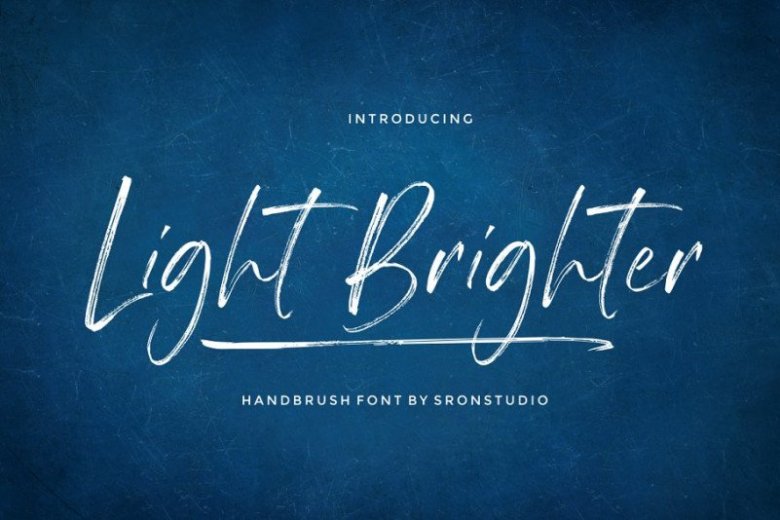
Light Brighter Brush Font
This is a script handbrush font, designed and shared by Sronstudio. It’s a modern brush font with handwritten style and natural rough dry brush strokes. Introducing Light Brighter Font. Light Brighter Brush is a natural handbrused font, this font Is perfect for logo, invitation, stationery, wedding designs, social media posts, advertisements, product packaging, product designs, label, photography, watermark, special events or anything. Displatter comes with full set of uppercase and lowercase letters, multilingual symbols, numerals, punctuation.